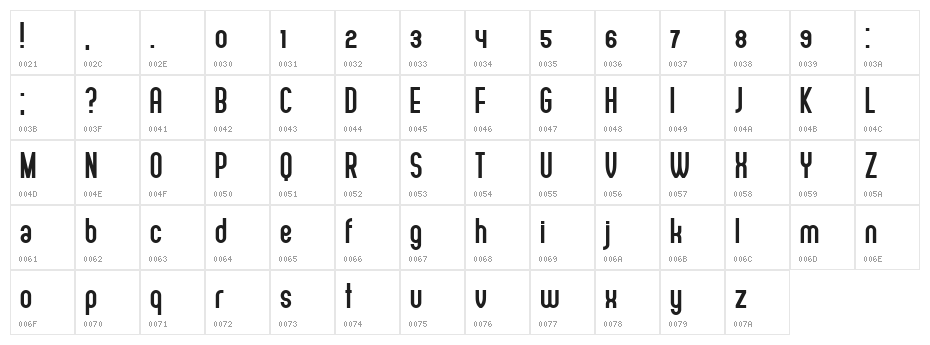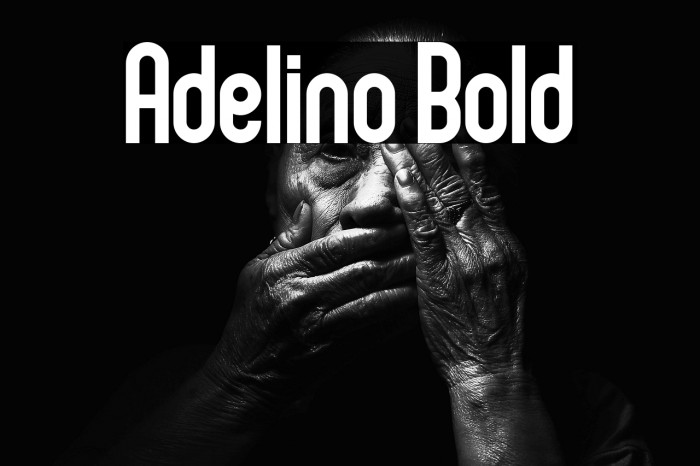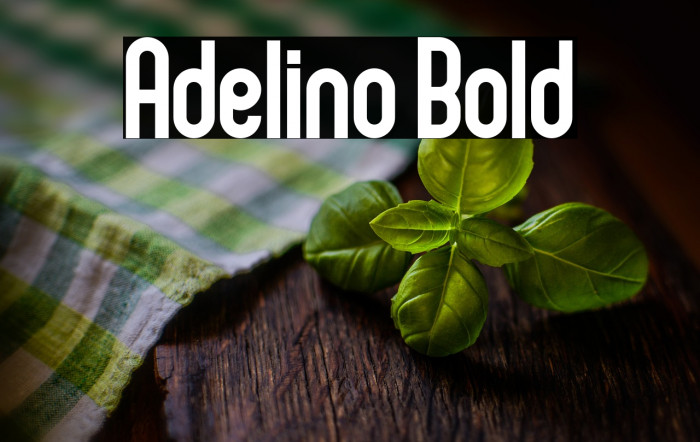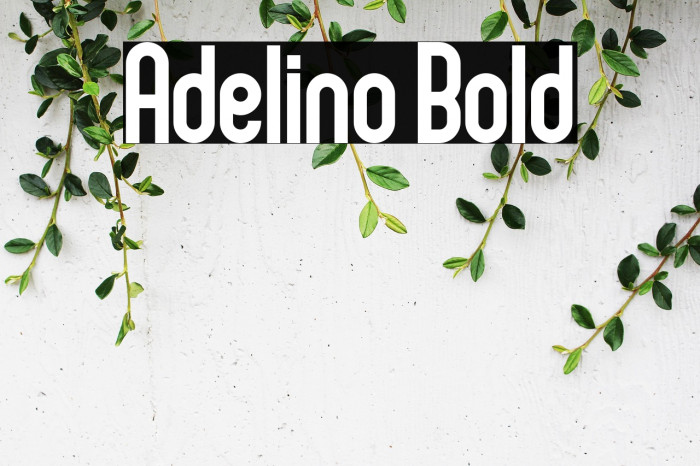
Adelino Bold Font
Adelino Bold Description
This font features a bold and modern design with clean, geometric lines. The characters are uniformly thick, providing a strong and impactful presence. The uppercase letters are tall and narrow, while the lowercase letters maintain a consistent height, contributing to a cohesive look. The numbers are distinct and easy to read, with a similar boldness that matches the alphabet. Special characters are designed to complement the overall style, maintaining the same weight and geometric precision. This font is ideal for making a statement with its bold and confident appearance.
| Proposed Projects | Ideal for headlines, posters, branding, and logo design where a bold statement is needed. |